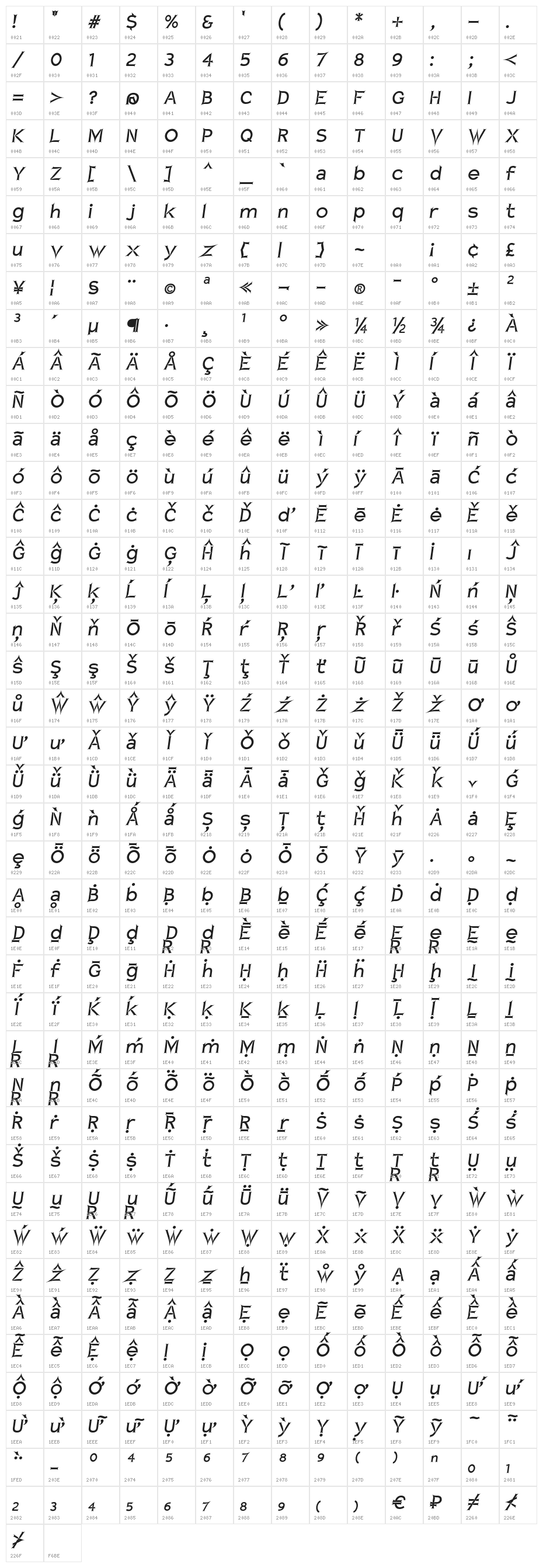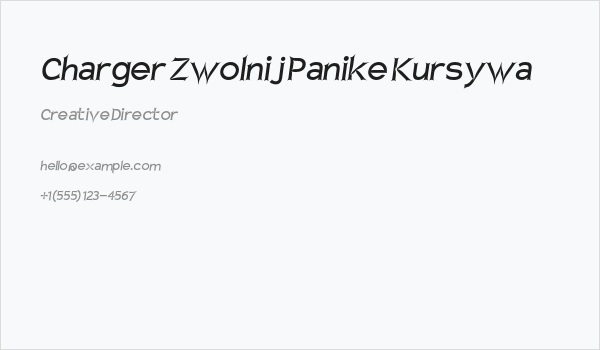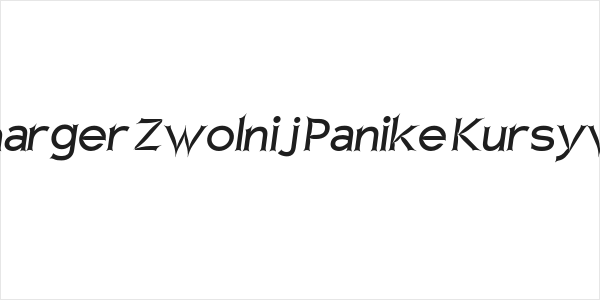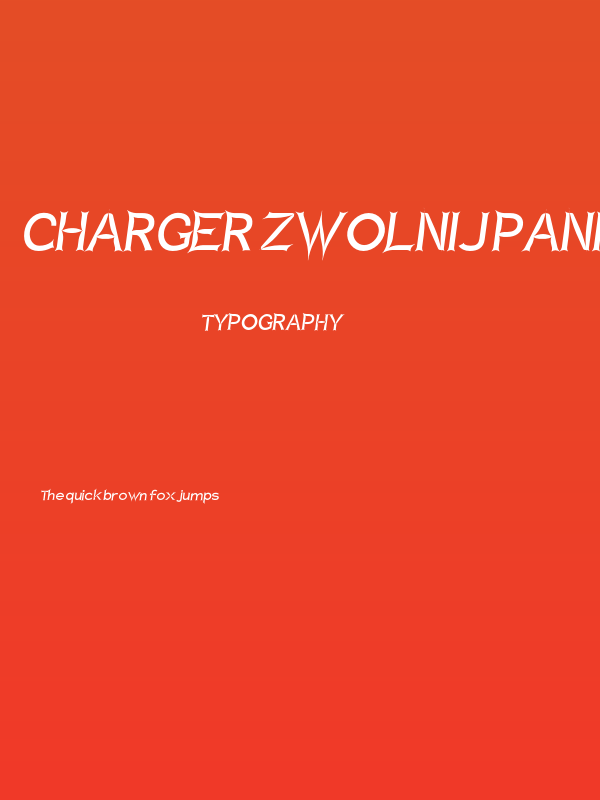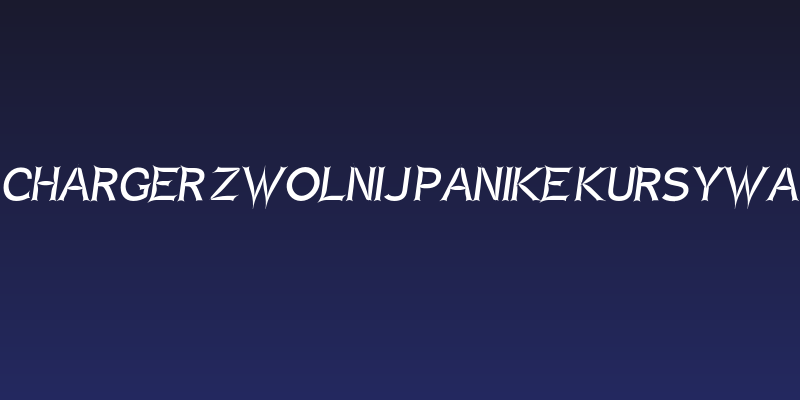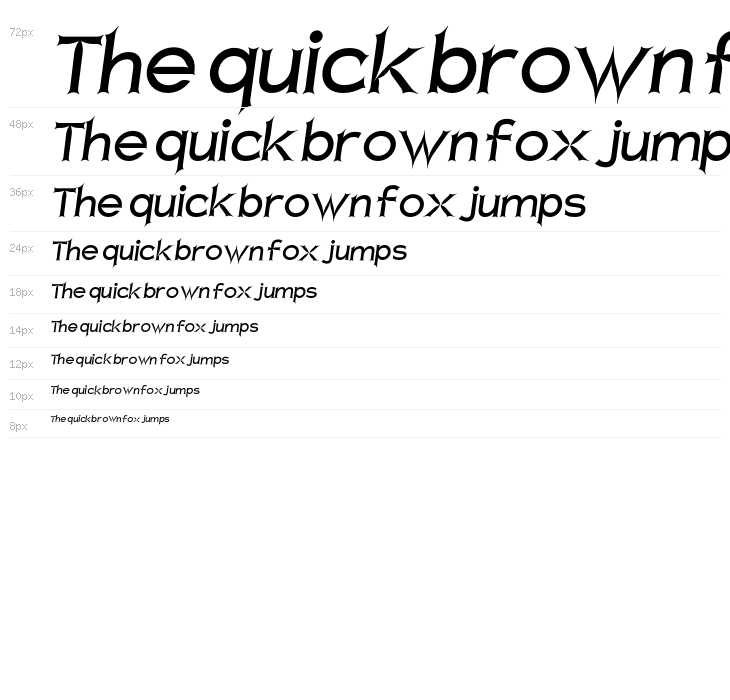
Charger Zwolnij Panike Kursywa Font
Charger Zwolnij Panike Kursywa Description
This font features a dynamic and edgy design with sharp, angular serifs that give it a distinctive, aggressive appearance. The uppercase letters are bold and commanding, while the lowercase letters maintain a consistent style with slightly less intensity. The numerals are well-proportioned and align seamlessly with the overall aesthetic. Special characters are crafted with the same attention to detail, ensuring a cohesive look across all glyphs. The font's unique style is both modern and slightly rebellious, making it stand out in any design context.
| Overall Style | Modern, Edgy |
| Proposed Projects | Ideal for branding, posters, album covers, and any project needing a bold, standout typeface. |